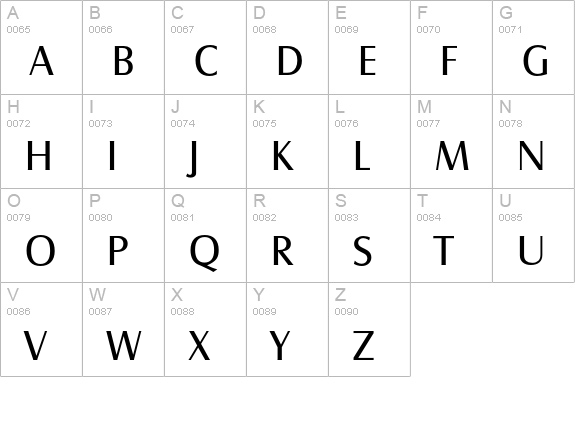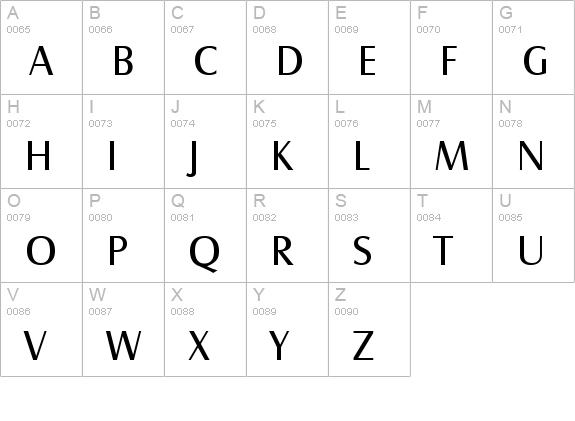
Salzburg-Regular is the standard, neutral variant in the Salzburg typeface family \xE2\x80\x94 well suited to general body text, paragraphs, and standard typographic work.
Salzburg-Regular is a versatile and elegant font that exudes a sense of sophistication and charm. With its balanced letterforms and clean lines, it is perfect for a wide range of design projects, from branding to editorial layouts. The timeless design of Salzburg-Regular makes it suitable for both traditional and contemporary designs, giving any project a touch of class. This font offers a harmonious blend of legibility and artistic flair, making it a favorite among designers and typographers. The well-proportioned characters ensure easy readability, while the subtle curves and delicate details add a touch of personality. Whether used in headlines, body text, or logos, Salzburg-Regular is sure to make a lasting impression. One of the best things about Salzburg-Regular is that it is available for free download at FontsMarket.com. You can easily access this font and unleash your creativity without any cost. Its availability for free makes it an excellent choice for budget-conscious designers and individuals who appreciate quality fonts without the price tag. Salzburg-Regular is a true gem in the world of typography. Its elegance, versatility, and free availability make it a must-have for any designer's toolkit. Download Salzburg-Regular today from FontsMarket.com and elevate your design projects to new heights.